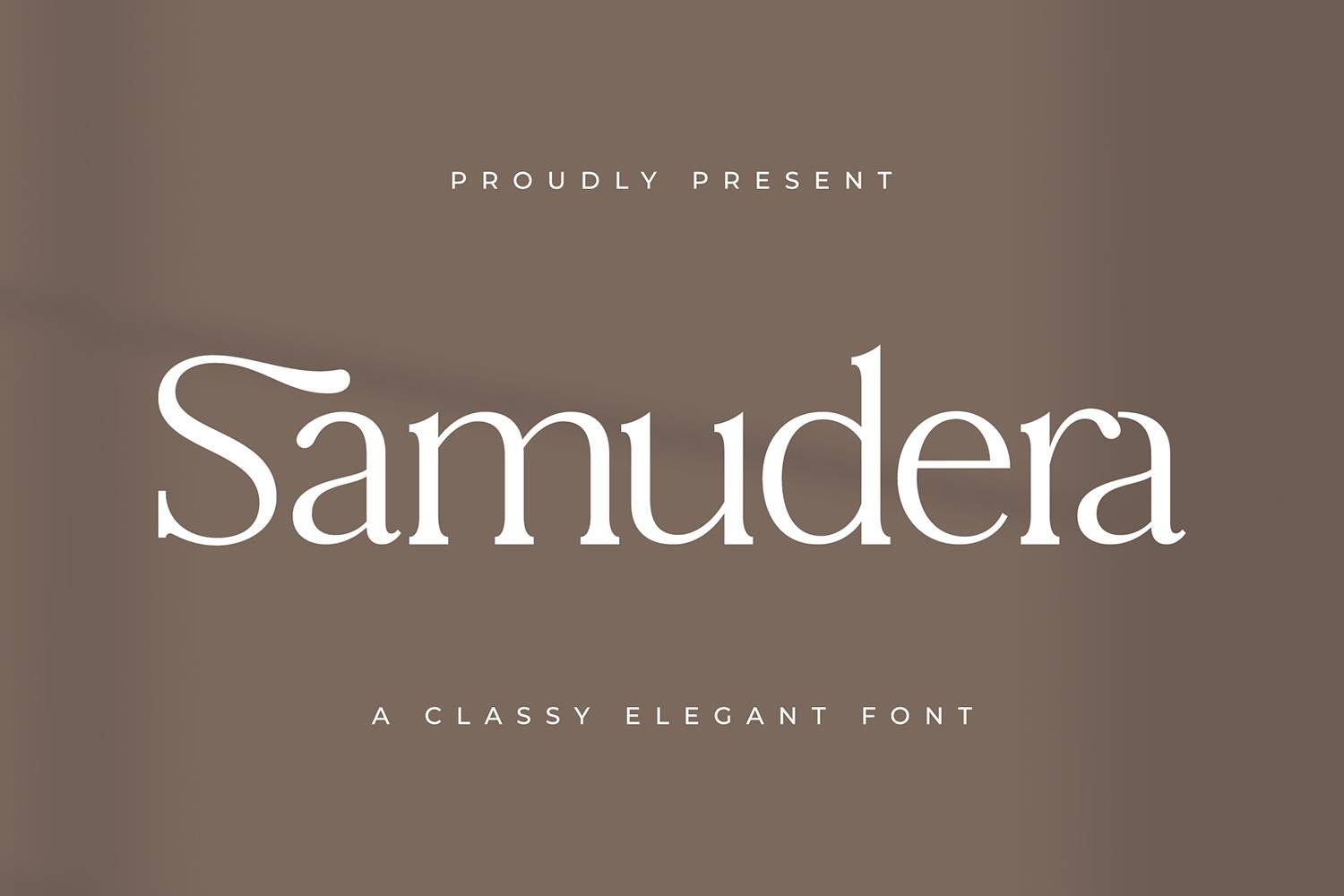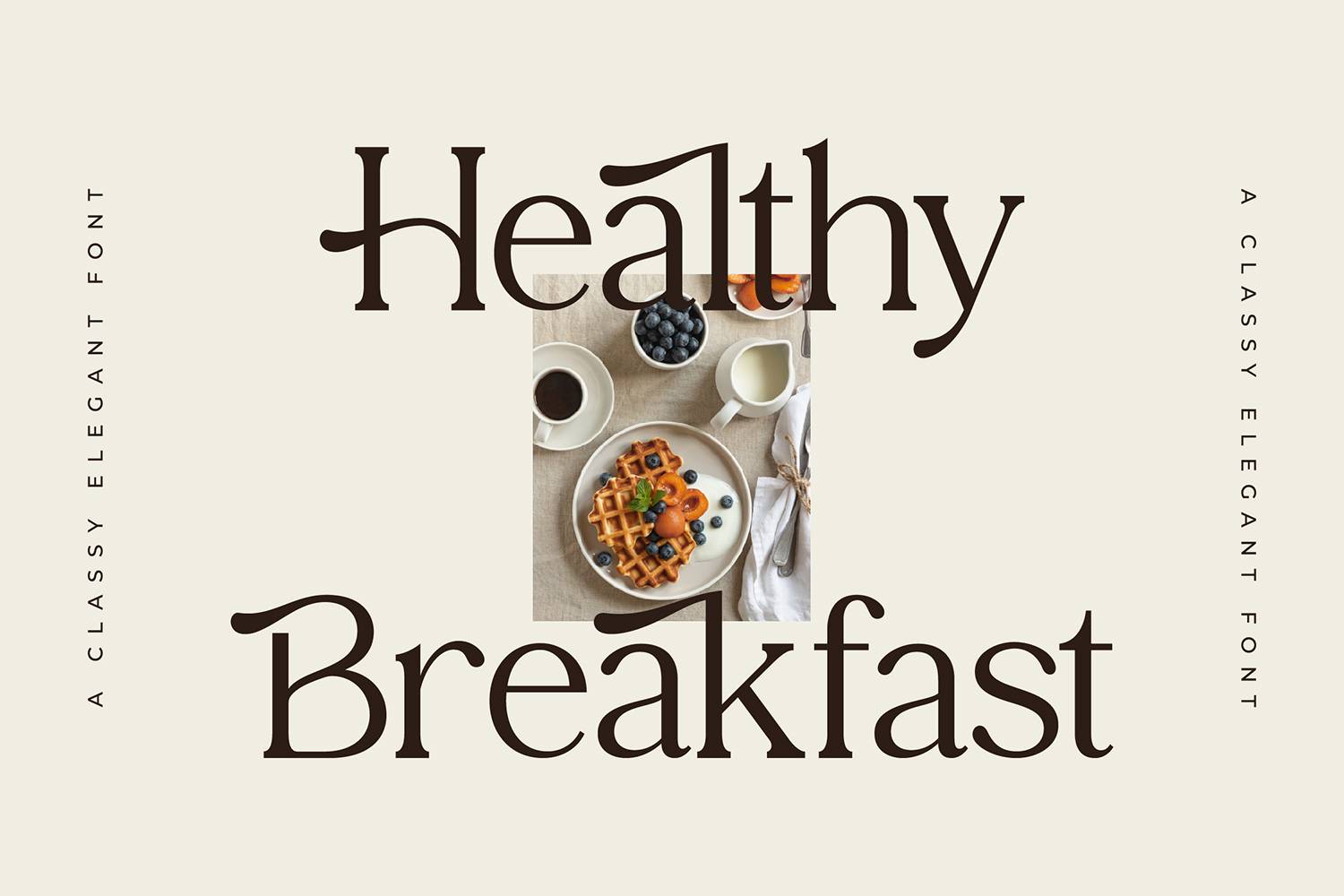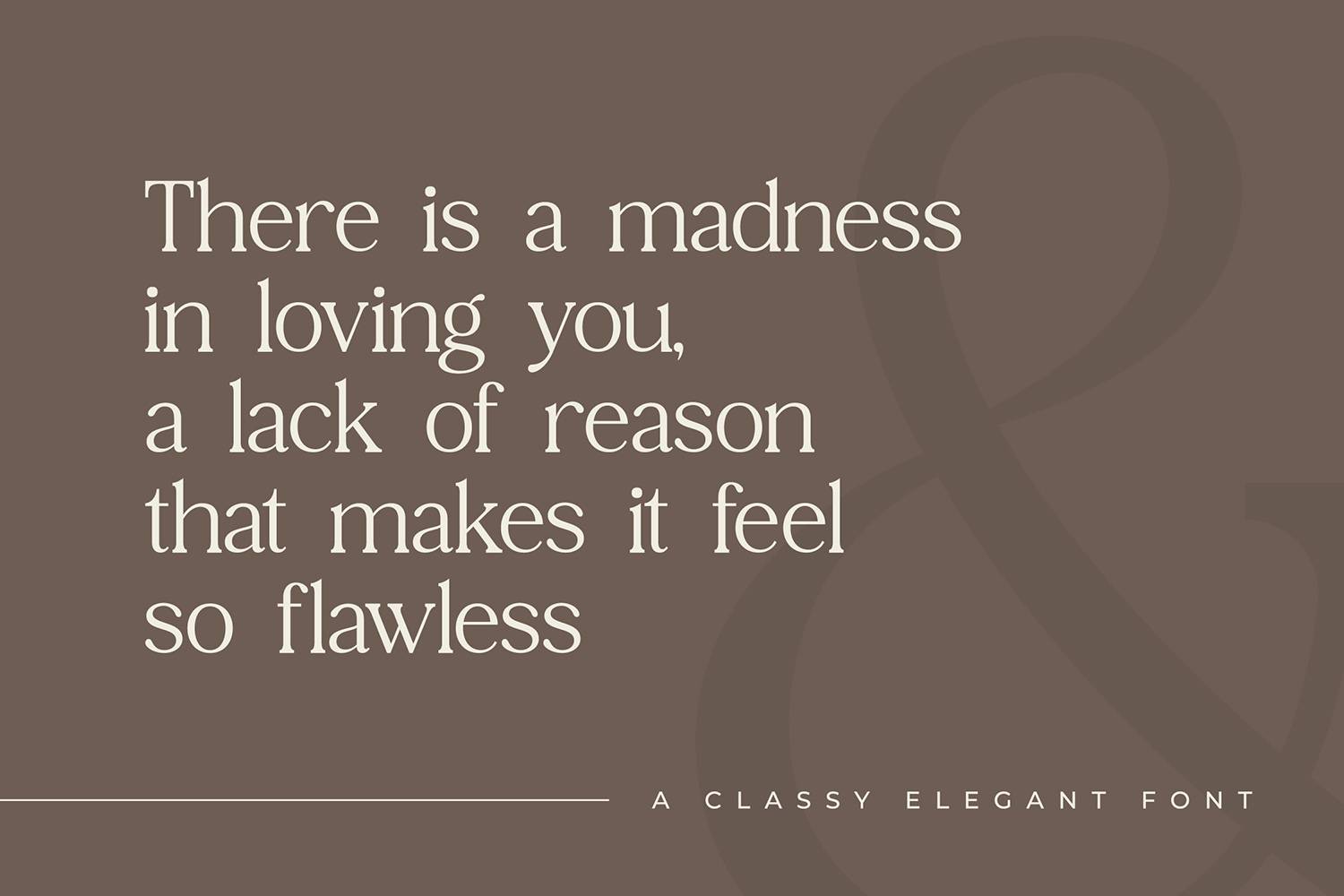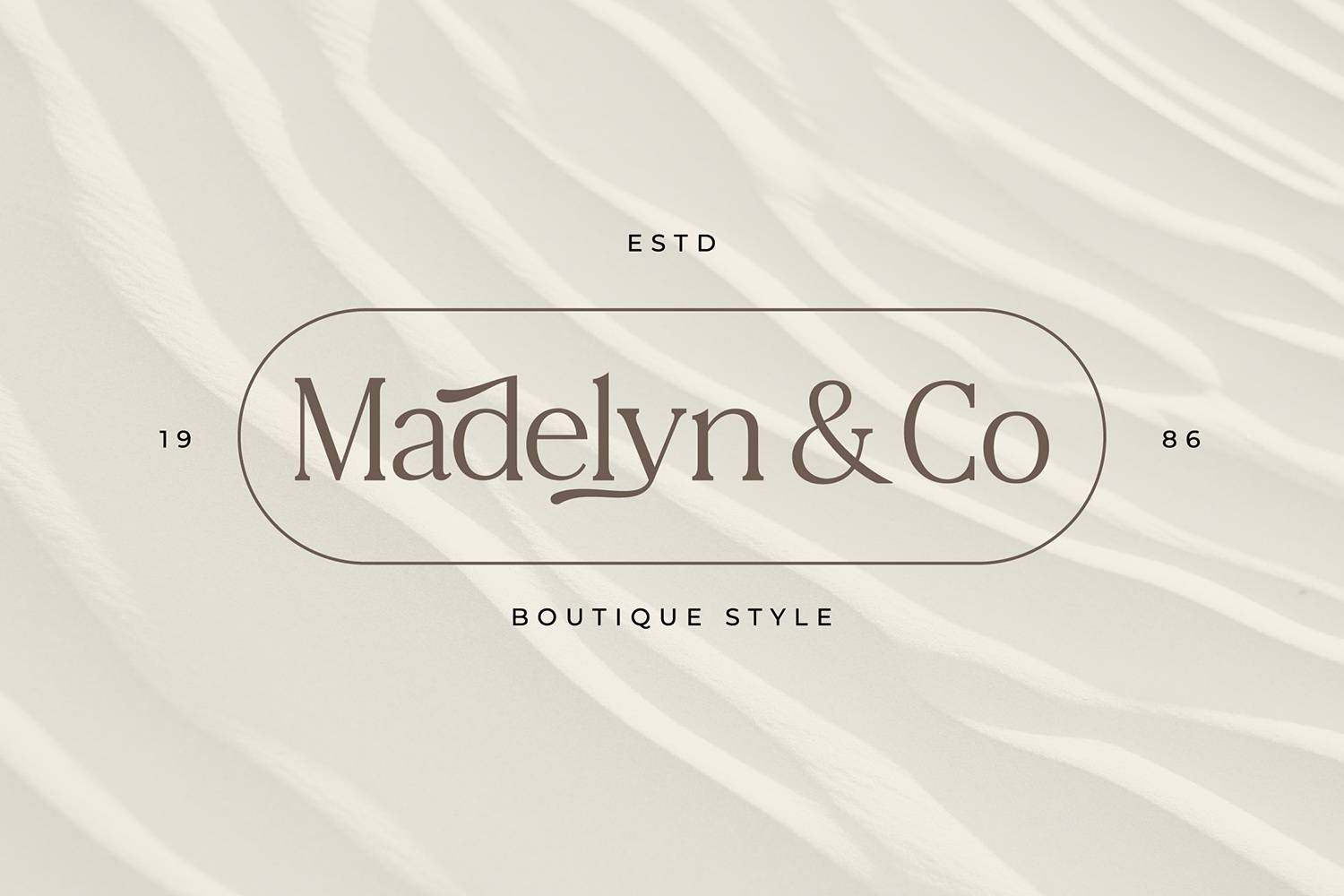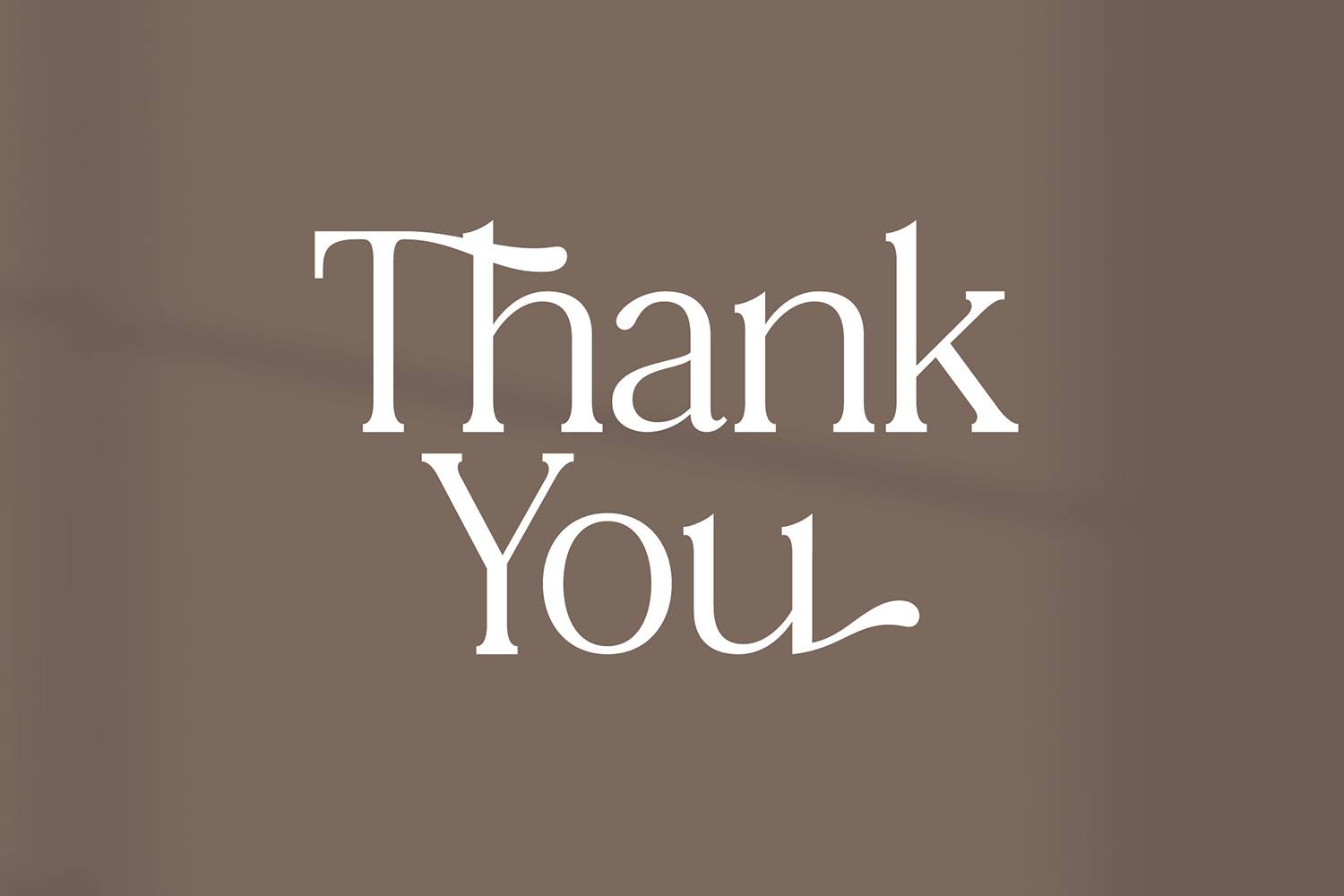
Samudera is a refined serif font characterized by its elegant, high-contrast strokes and delicate, bracketed serifs that give it a classic yet sophisticated feel. With its tall x-height and well-balanced letterforms, it combines readability with a touch of luxury, making it ideal for upscale branding, editorial design, and formal invitations. This font captures a timeless and graceful personality, perfect for projects that demand a polished and professional look.
Samudera Font
About Samudera Font